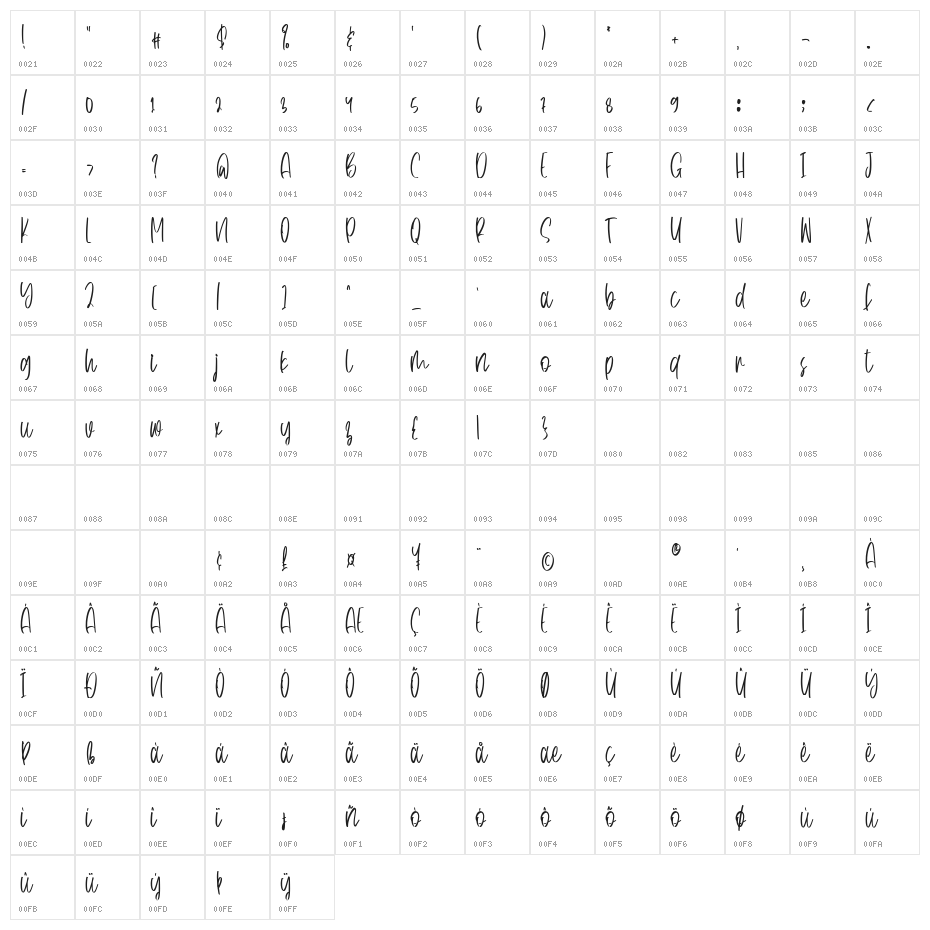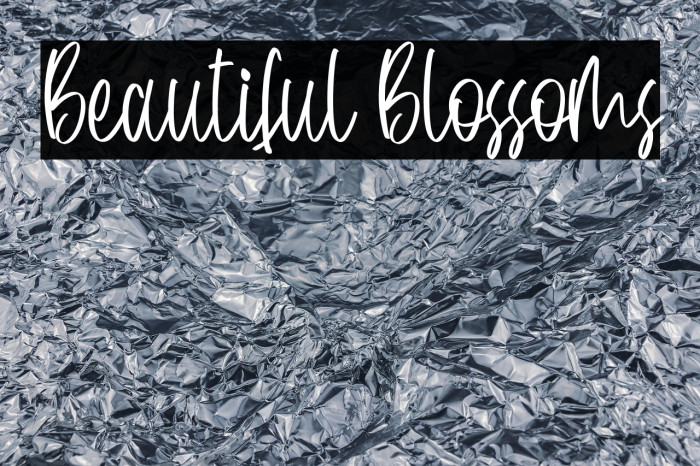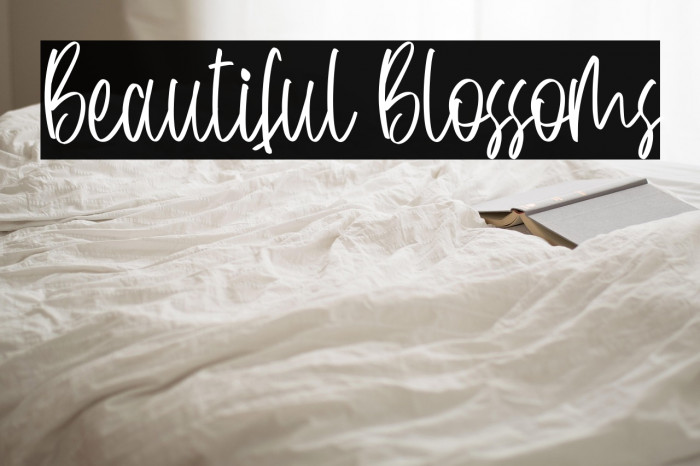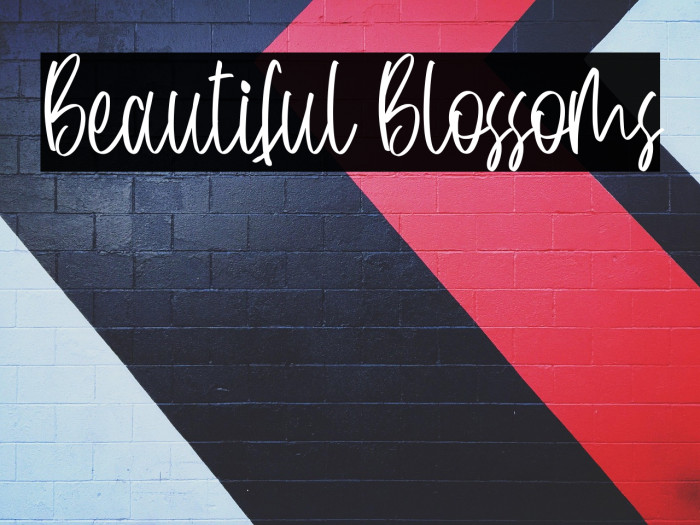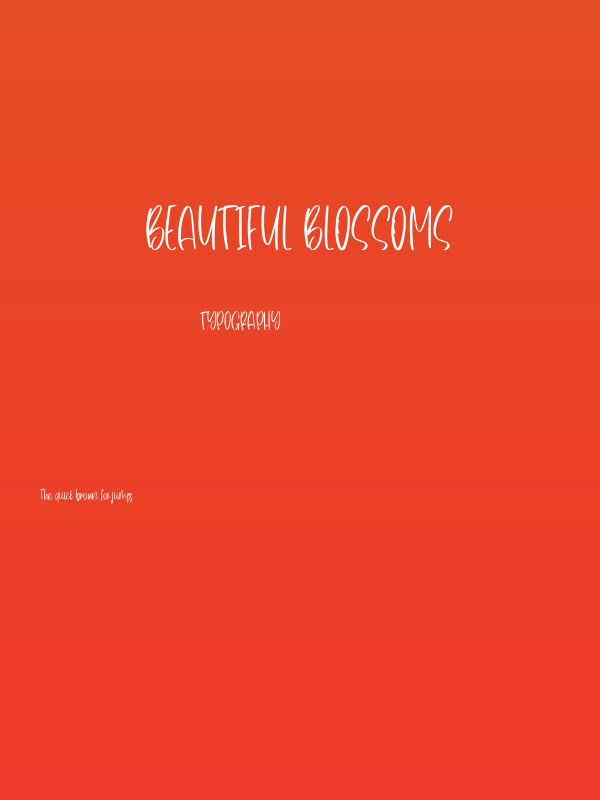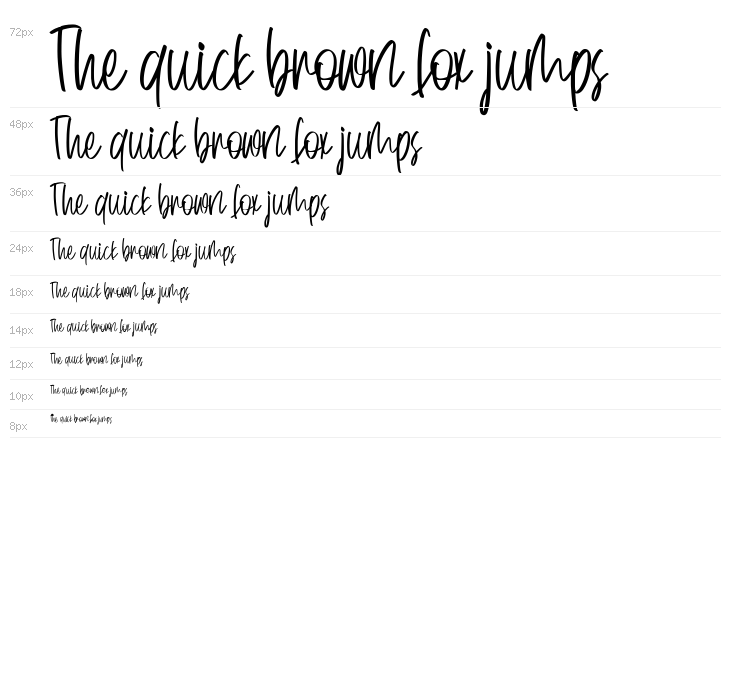
Beautiful Blossoms Font
Beautiful Blossoms Description
This font exudes a playful and whimsical charm, characterized by its handwritten style that mimics the fluidity and spontaneity of natural handwriting. The letters are slightly slanted, adding a dynamic and lively feel. Each character is crafted with a smooth, flowing line that varies in thickness, creating a sense of movement and energy. The uppercase letters are bold and prominent, while the lowercase letters maintain a consistent style with subtle variations that enhance the font's organic appearance. The numbers and special characters are designed to match the overall aesthetic, ensuring a cohesive look across all text. This font is perfect for projects that require a personal touch, such as invitations, greeting cards, or creative branding.